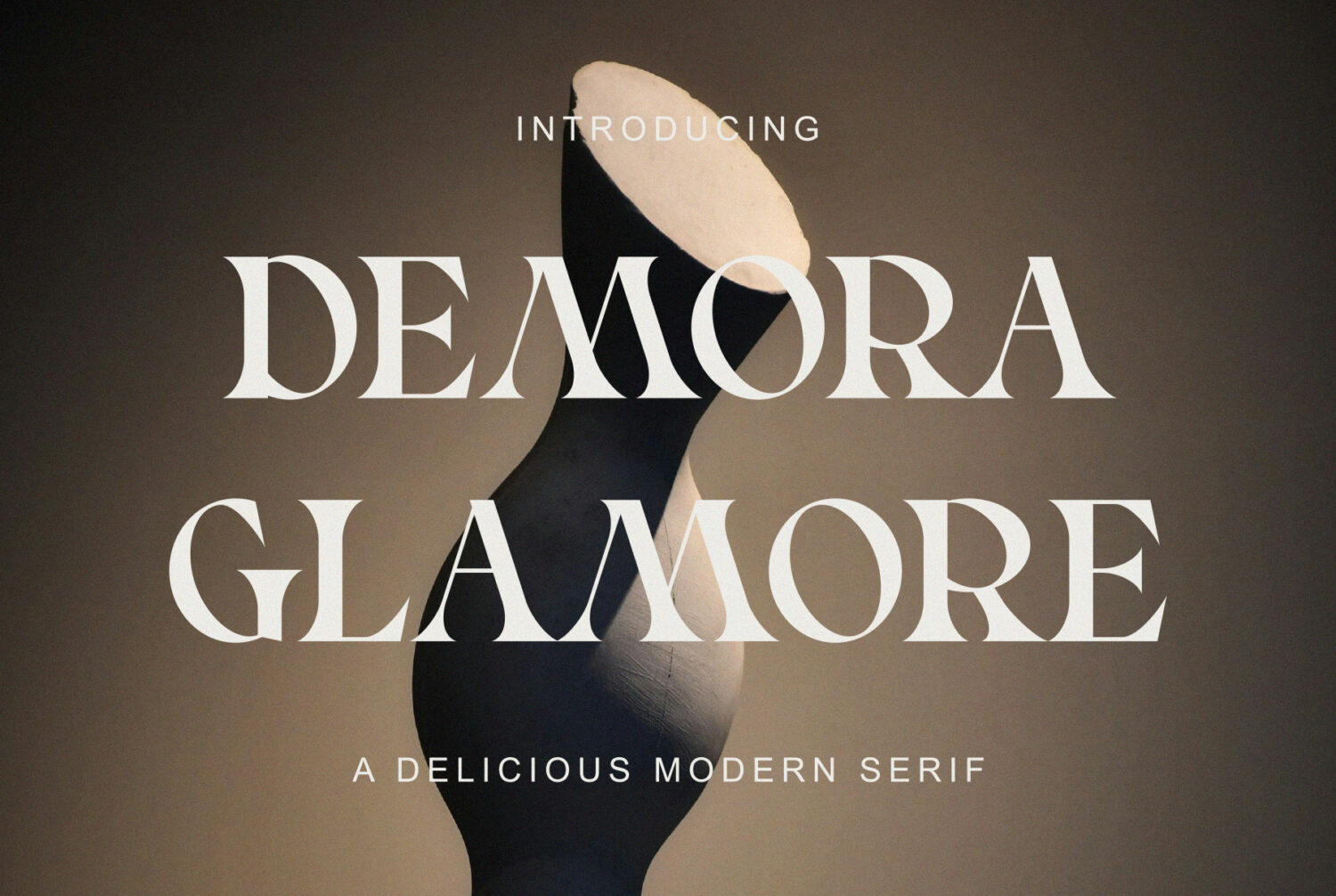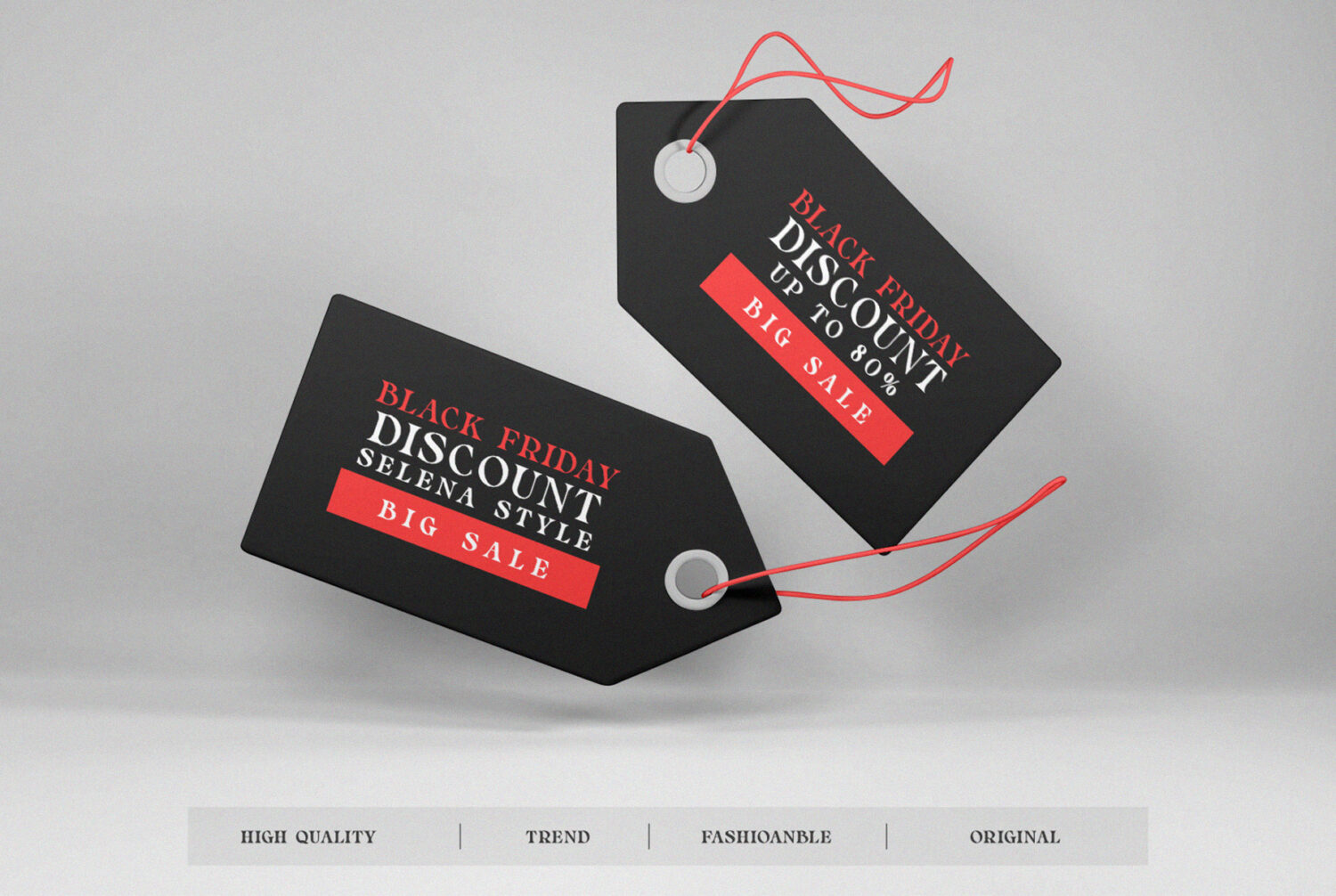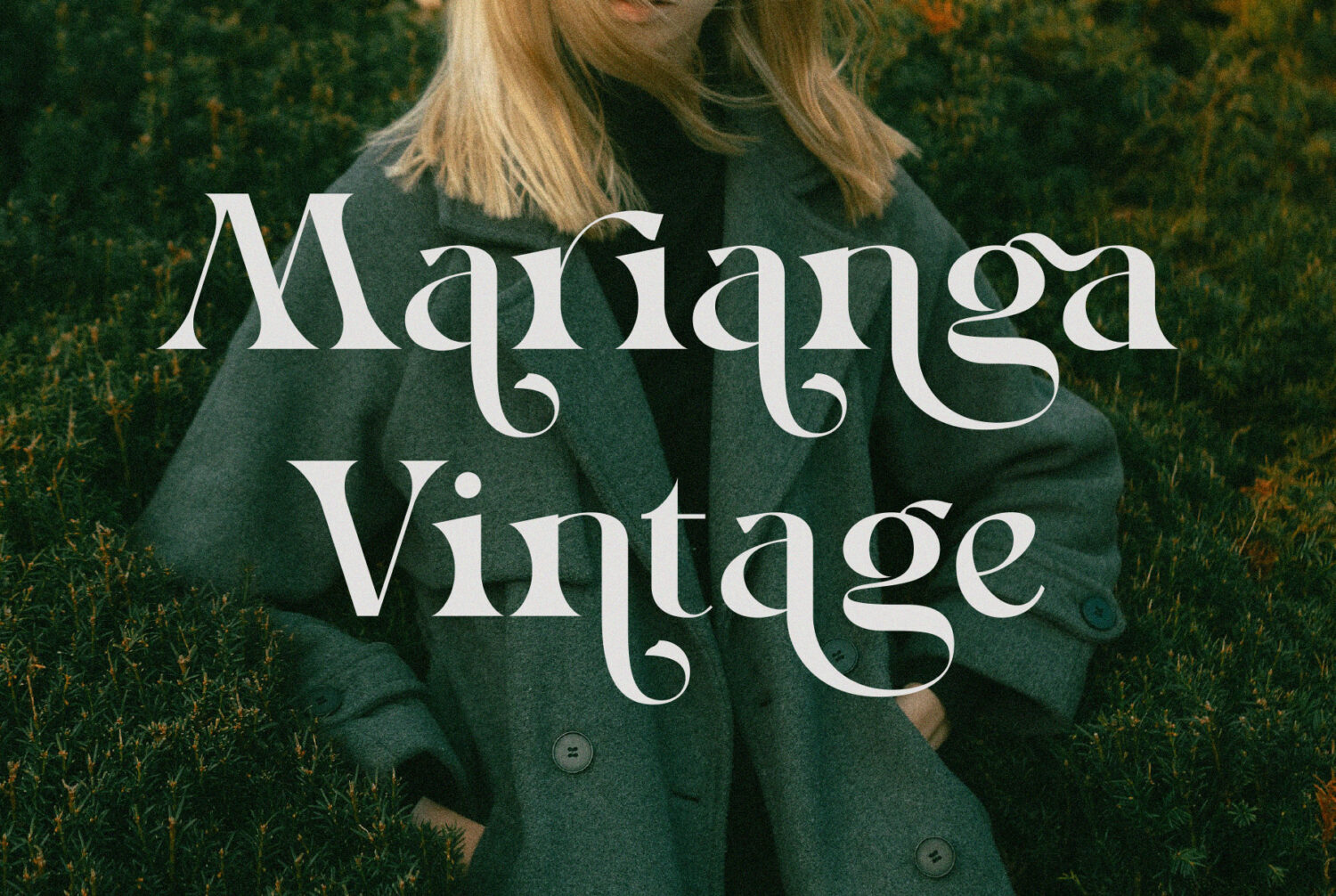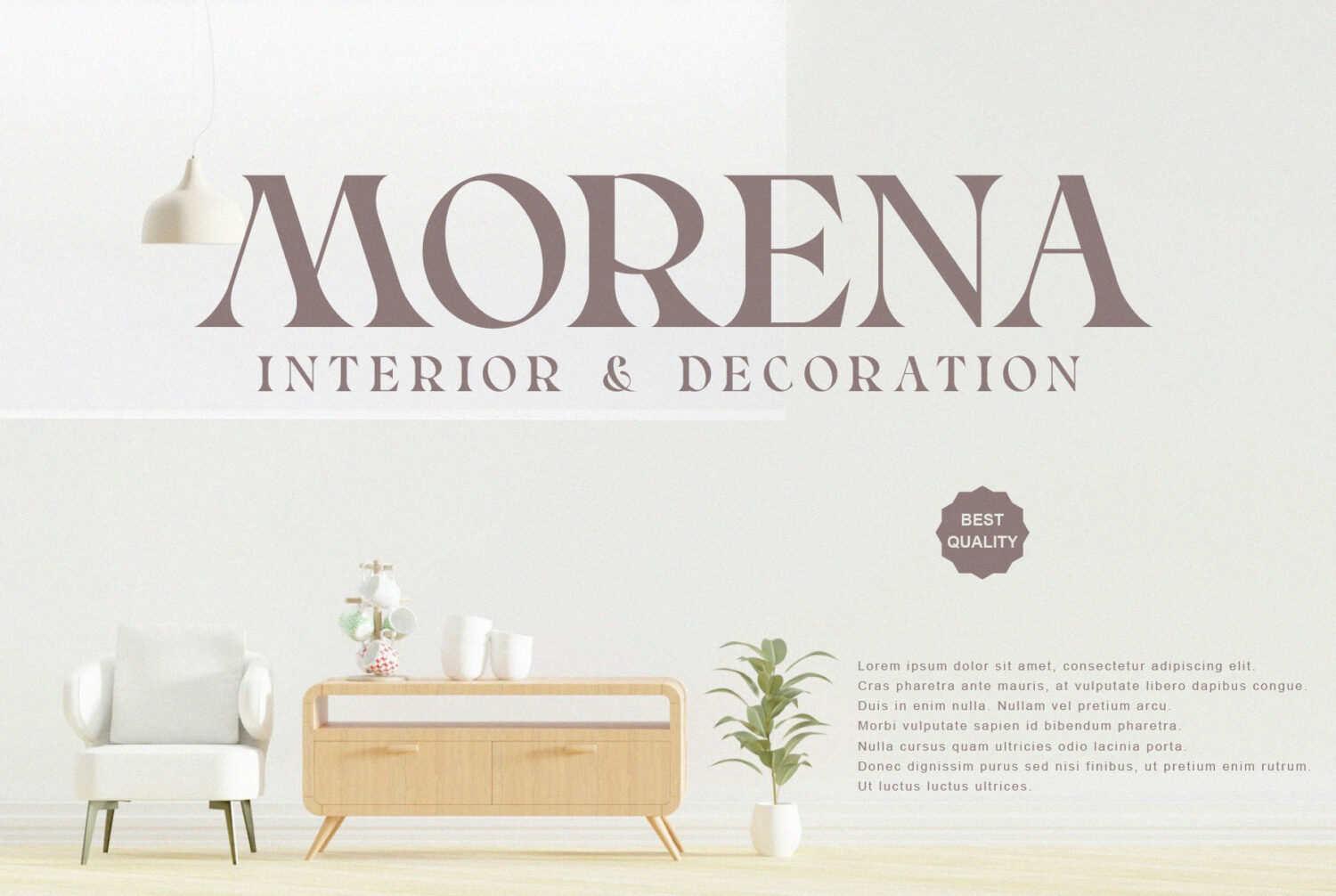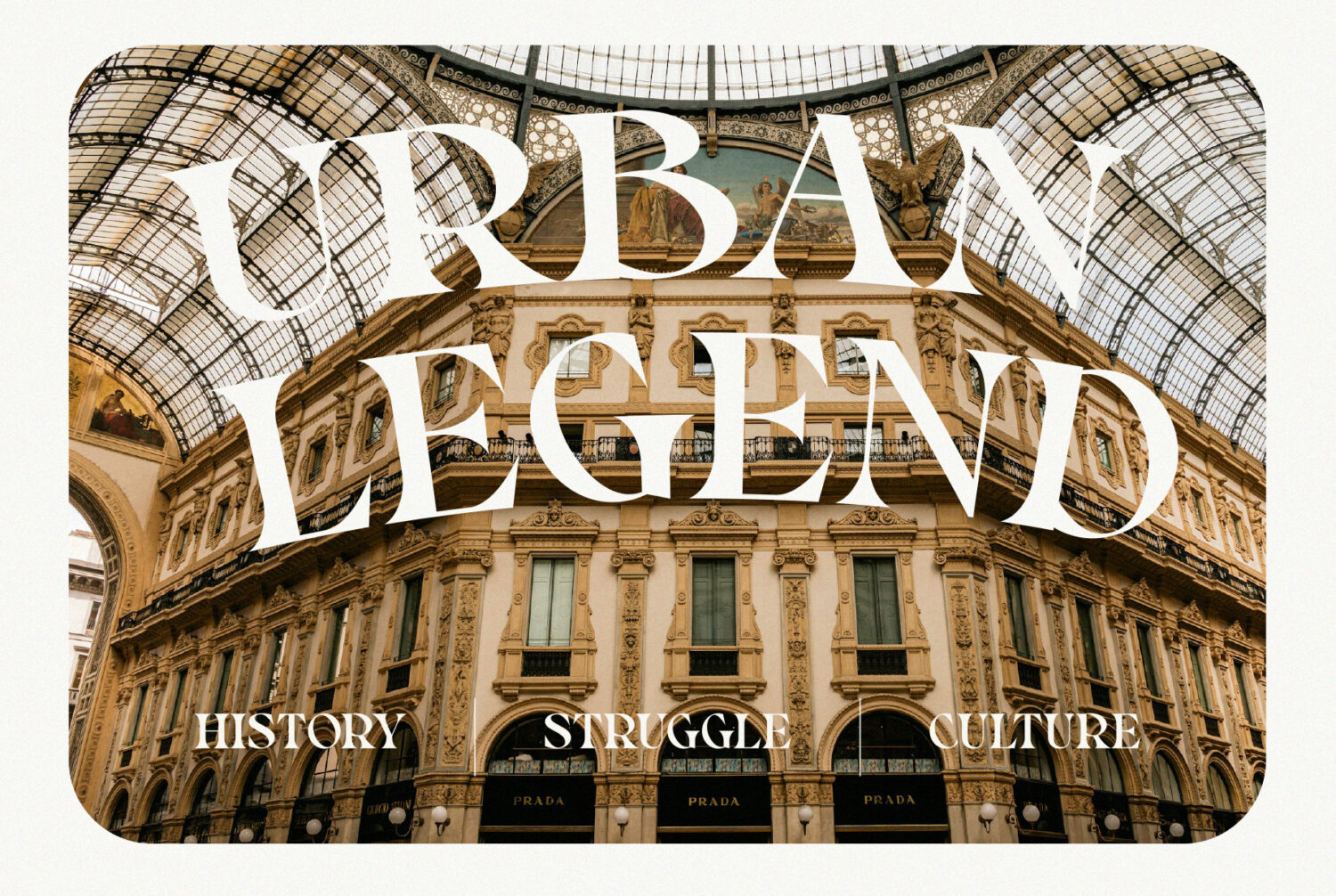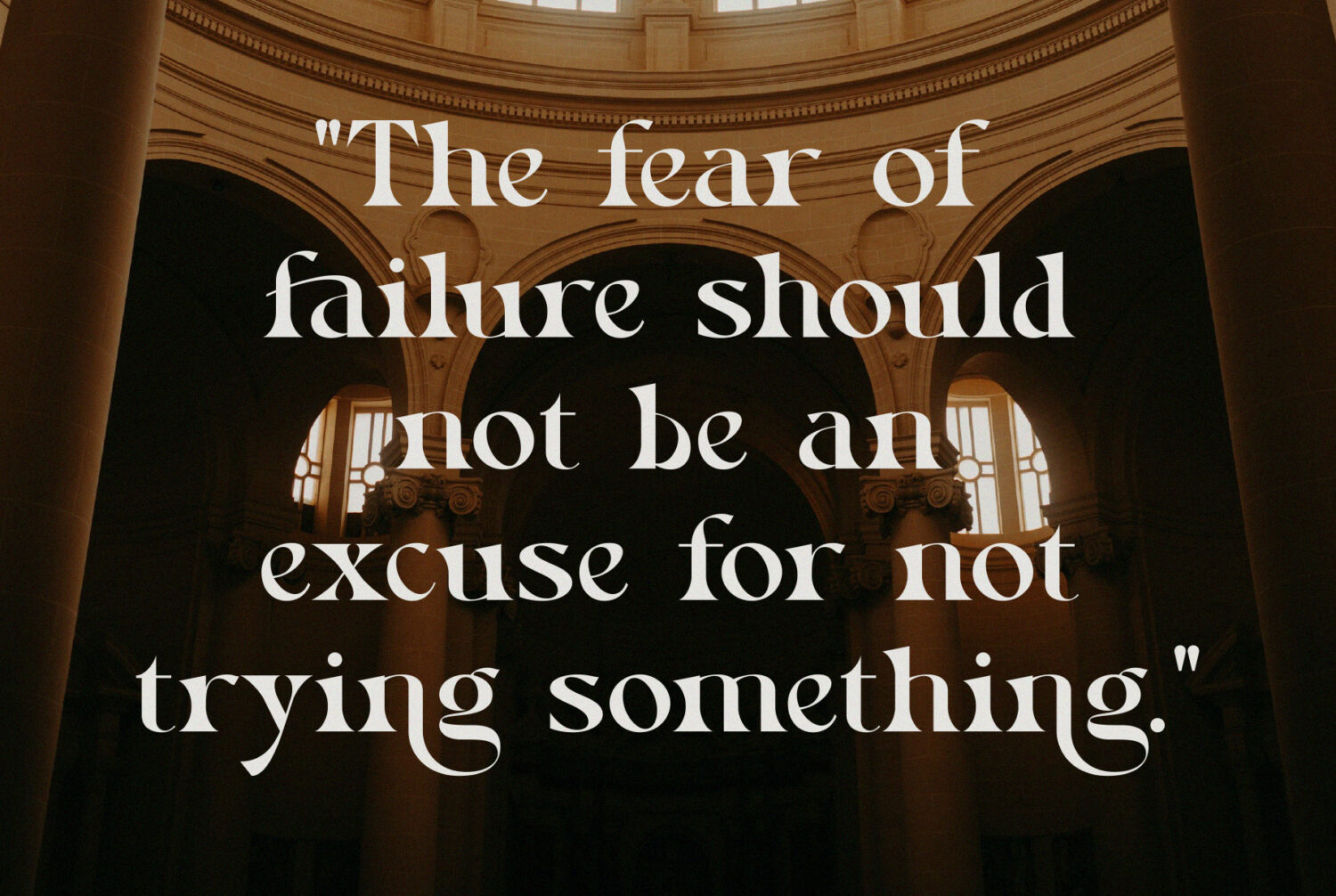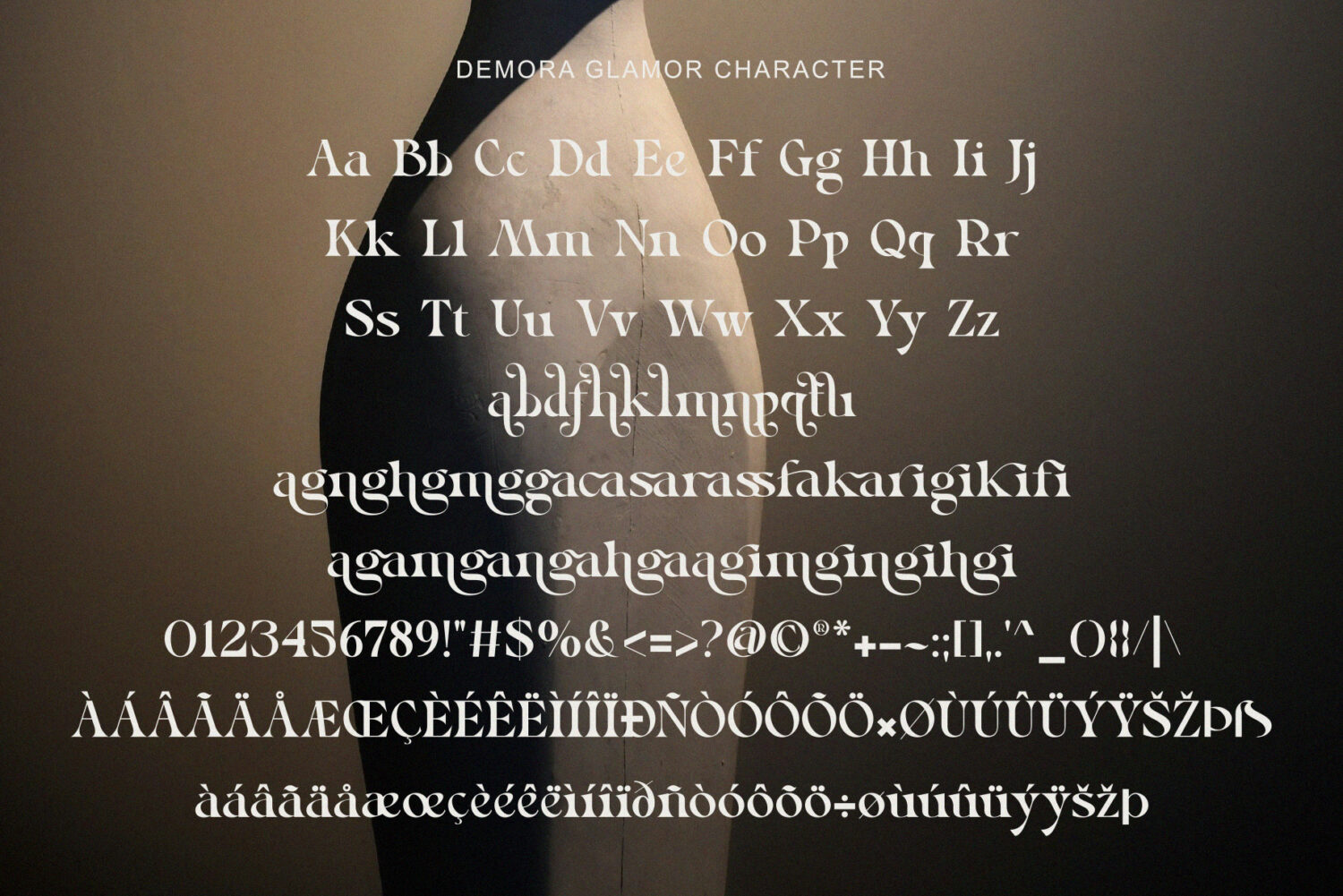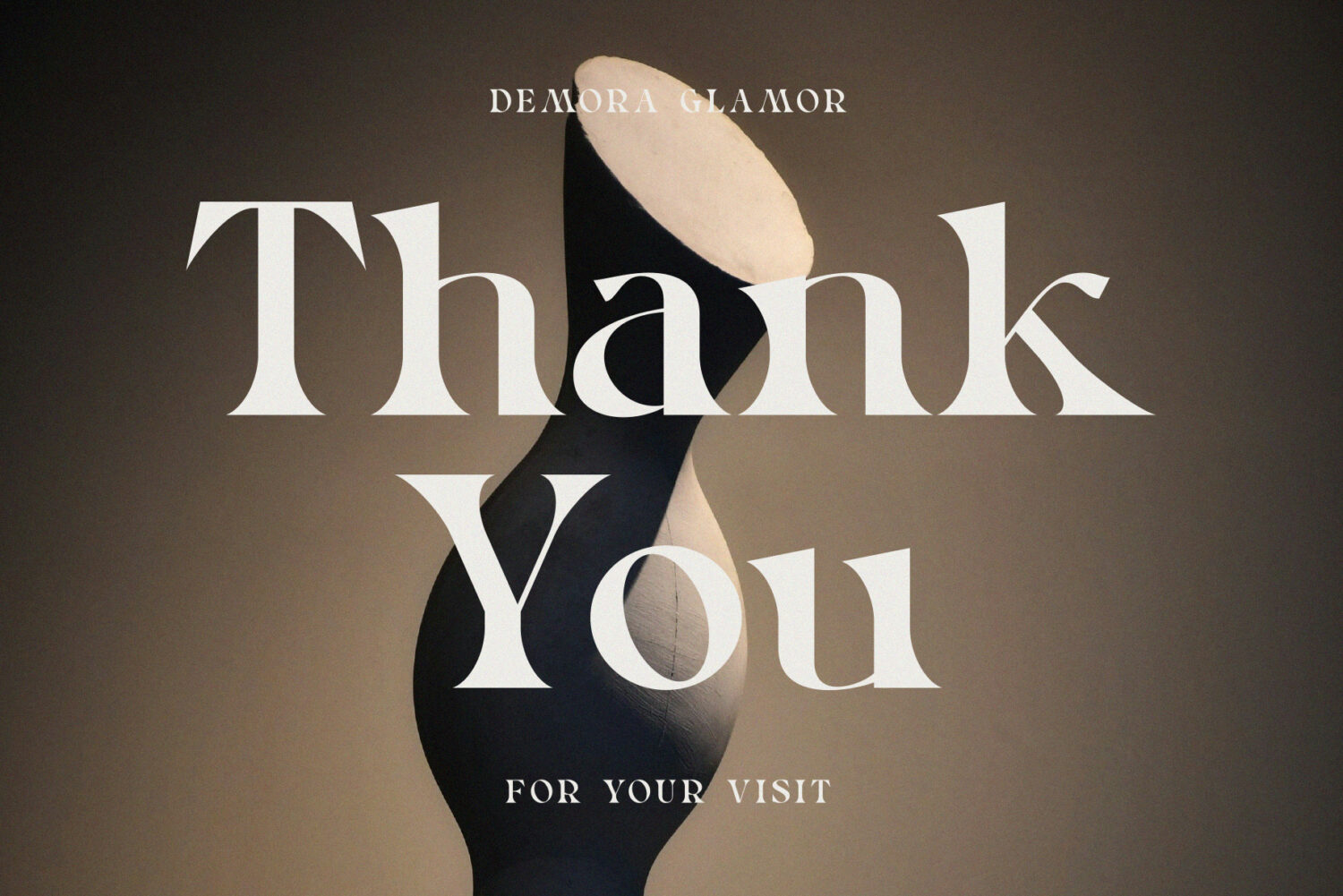
Introducing Demora Glamore: An elegant, beautiful and modern serif typeface. With its modern and minimalist appearance, Demora Glamore brings a luxurious, classy and clean style to your projects such as websites, modern logos, branding identities, social media quotes, wedding stationery, magazines and various other needs!
Demora Glamore displays unique and classy capital letters A to Z and is also equipped with a unique binding so that Demora Glamore becomes a beautiful font that can be adapted to various large projects that you want.